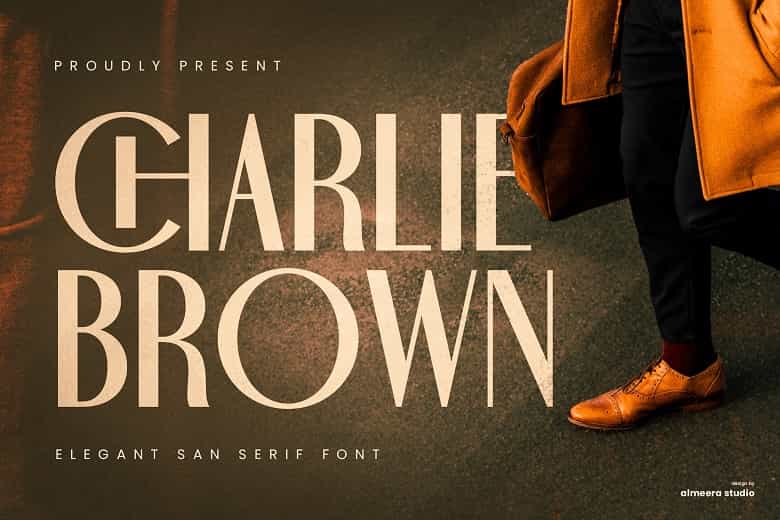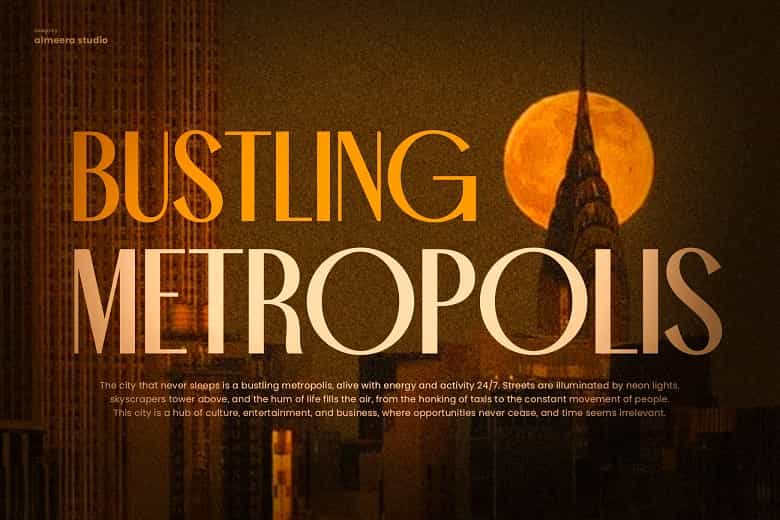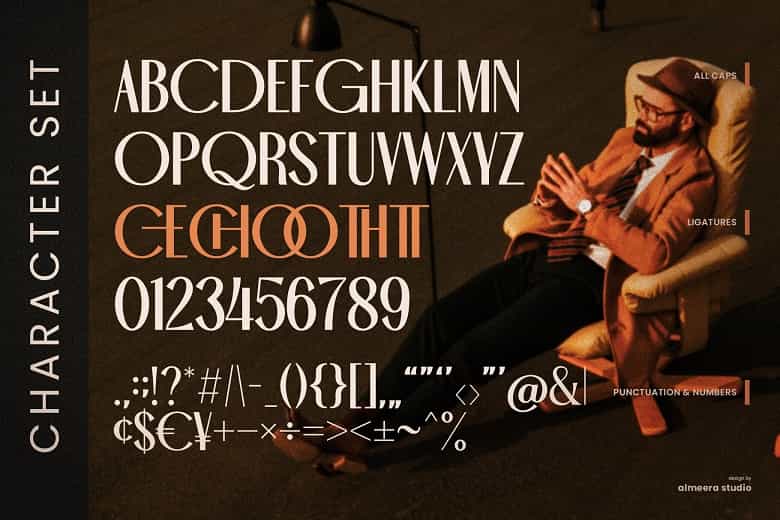
Charlie Brown is an elegant and simple sans serif font, suitable for use as display font for headings, logos, branding, magazines, product packaging and invitations.